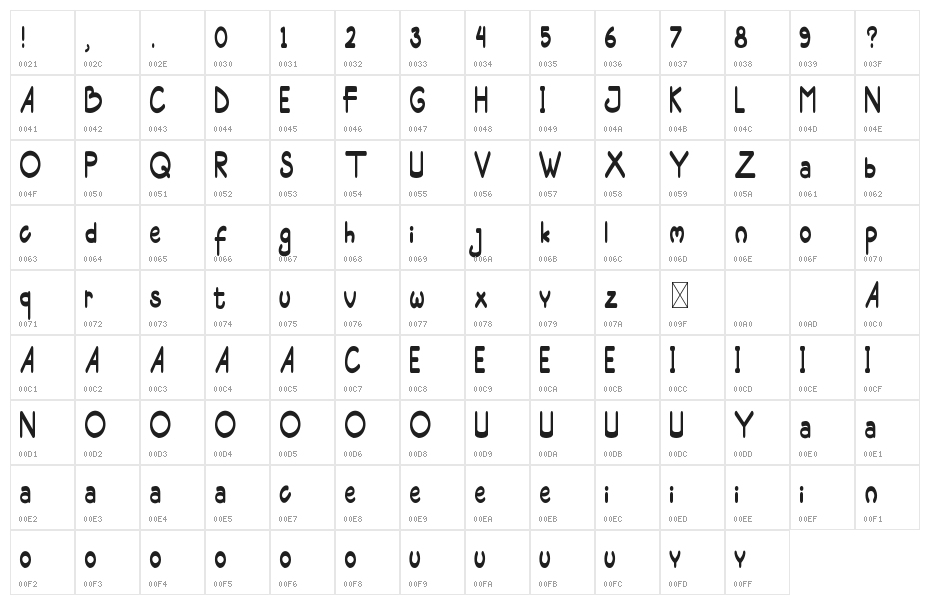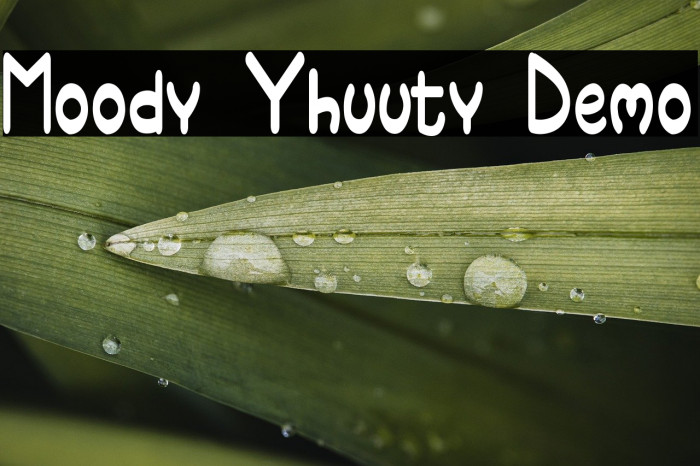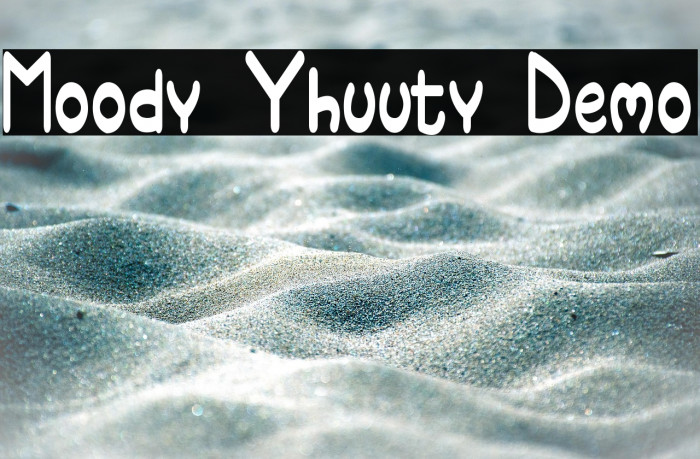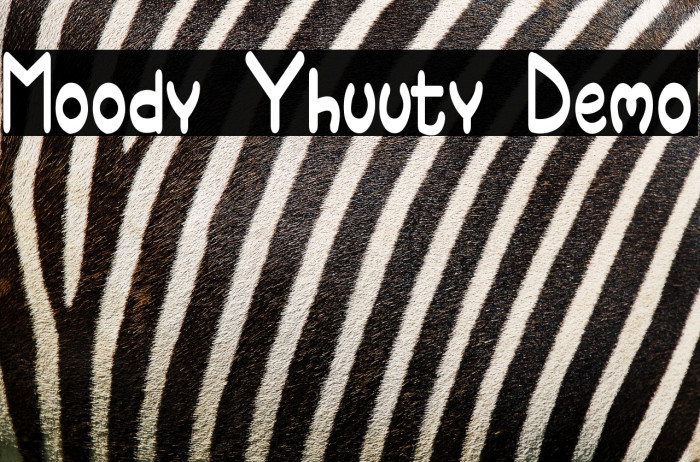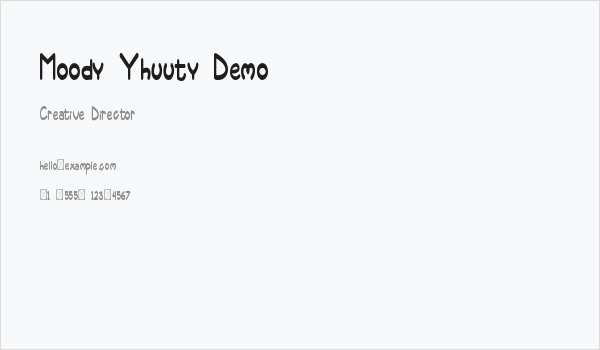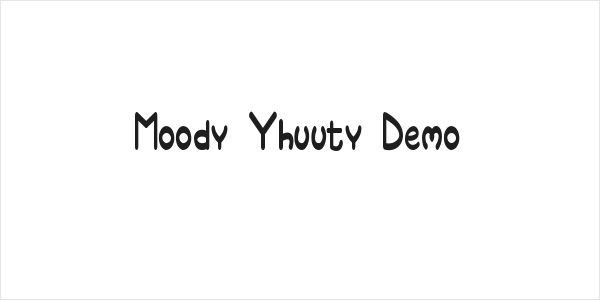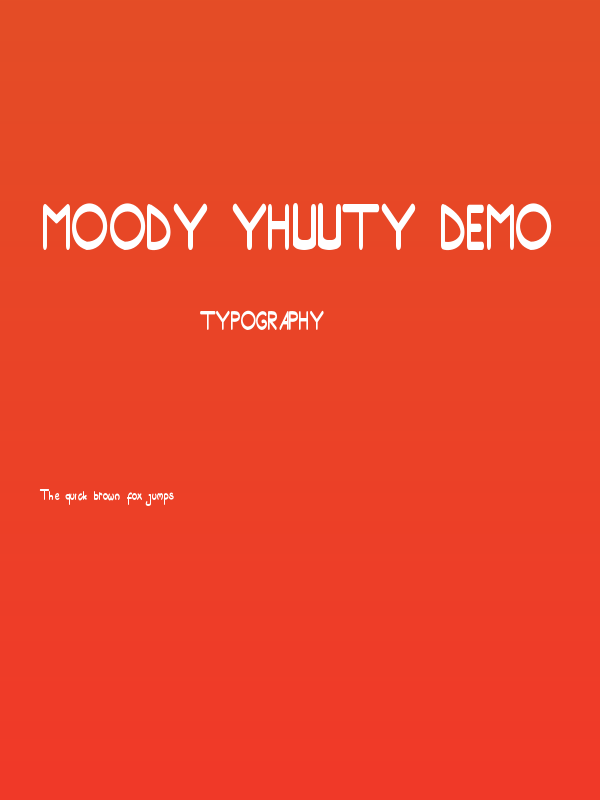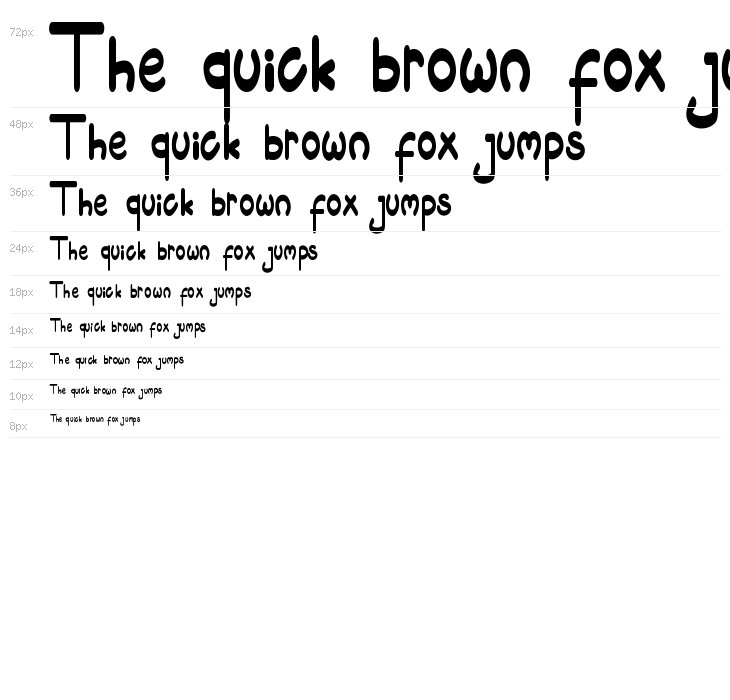
Moody Yhuuty Demo Font
Moody Yhuuty Demo Description
This font features a playful and quirky design with rounded edges and a bold presence. The characters are uniquely shaped, with some letters having unexpected curves and angles, giving it a whimsical and fun appearance. The uppercase letters are bold and prominent, while the lowercase letters maintain a consistent style with a slightly more compact form. The numbers are clear and easy to read, matching the overall playful aesthetic. The special characters are designed to fit seamlessly with the rest of the font, maintaining the same rounded and bold characteristics.
| Proposed Projects | Ideal for children's books, playful branding, greeting cards, and creative posters. |